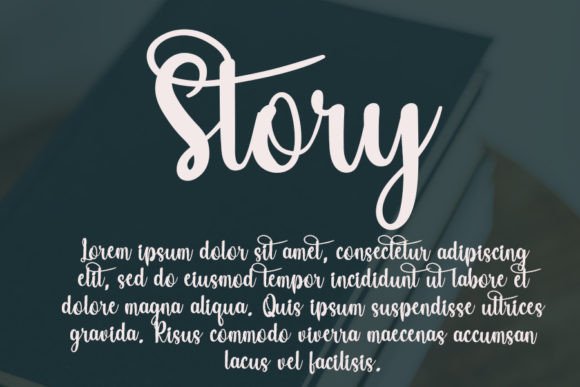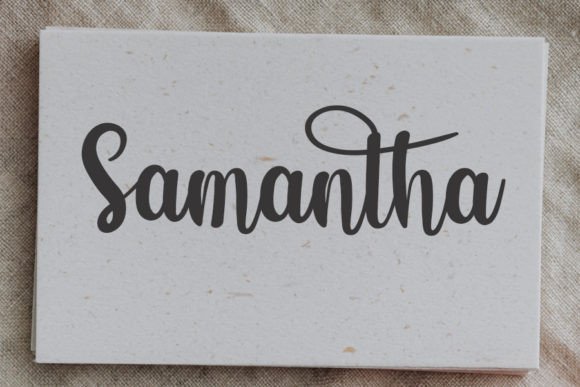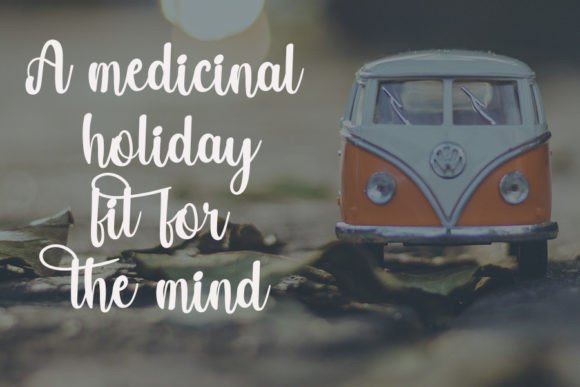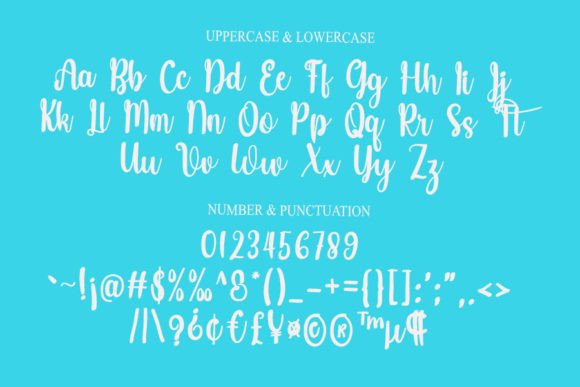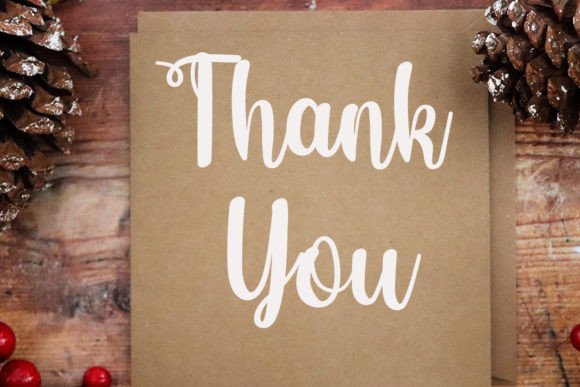
About Ontime Font
“Ontime” is a stylish handwritten font that emanates a modern vibe while maintaining a clean and impeccable form. Drawing inspiration from classic calligraphy, it strikes a harmonious balance between not being overly thin or overly thick. This font was thoughtfully designed to enhance the aesthetic appeal of your creative projects.
The versatility of “Ontime” makes it suitable for a wide range of design applications. Whether you’re engaged in branding, logo design, graphic design, or typography, “Ontime” offers a modern and adaptable choice.
In the realm of branding and visual identity, “Ontime” can play a pivotal role in establishing a contemporary and distinctive image for businesses and brands. Its well-balanced and modern handwritten appearance imparts a sense of style and individuality, making it an excellent choice for those seeking a memorable brand identity.
When used in printed materials such as posters, flyers, and promotional collateral, “Ontime” introduces a touch of modernity and variety. Its calligraphic influence conveys authenticity and artistic flair, making it an excellent choice for capturing attention and effectively conveying messages.
For personal projects like invitations, greeting cards, and stationery, “Ontime” can add an extra layer of style and charm to your messages. It brings a contemporary and polished look to your words, making it suitable for various special occasions and personal expressions.
In essence, “Ontime” is more than just a font; it’s a creative tool that introduces a cool and modern ambiance to your projects. Its adaptability and contemporary aesthetics make it a valuable asset for designers and individuals looking to infuse their work with style and beauty, thereby enhancing the overall impact of their creative endeavors.